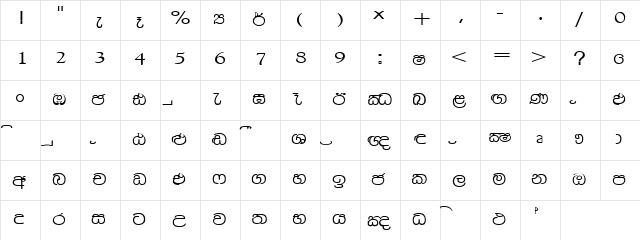
Arana Sinhala Regular
Design Context for Arana Sinhala Typeface
Arana Sinhala offers clean, dependable letterforms without strong stylistic allegiance, making it a practical choice for designers who need flexibility.